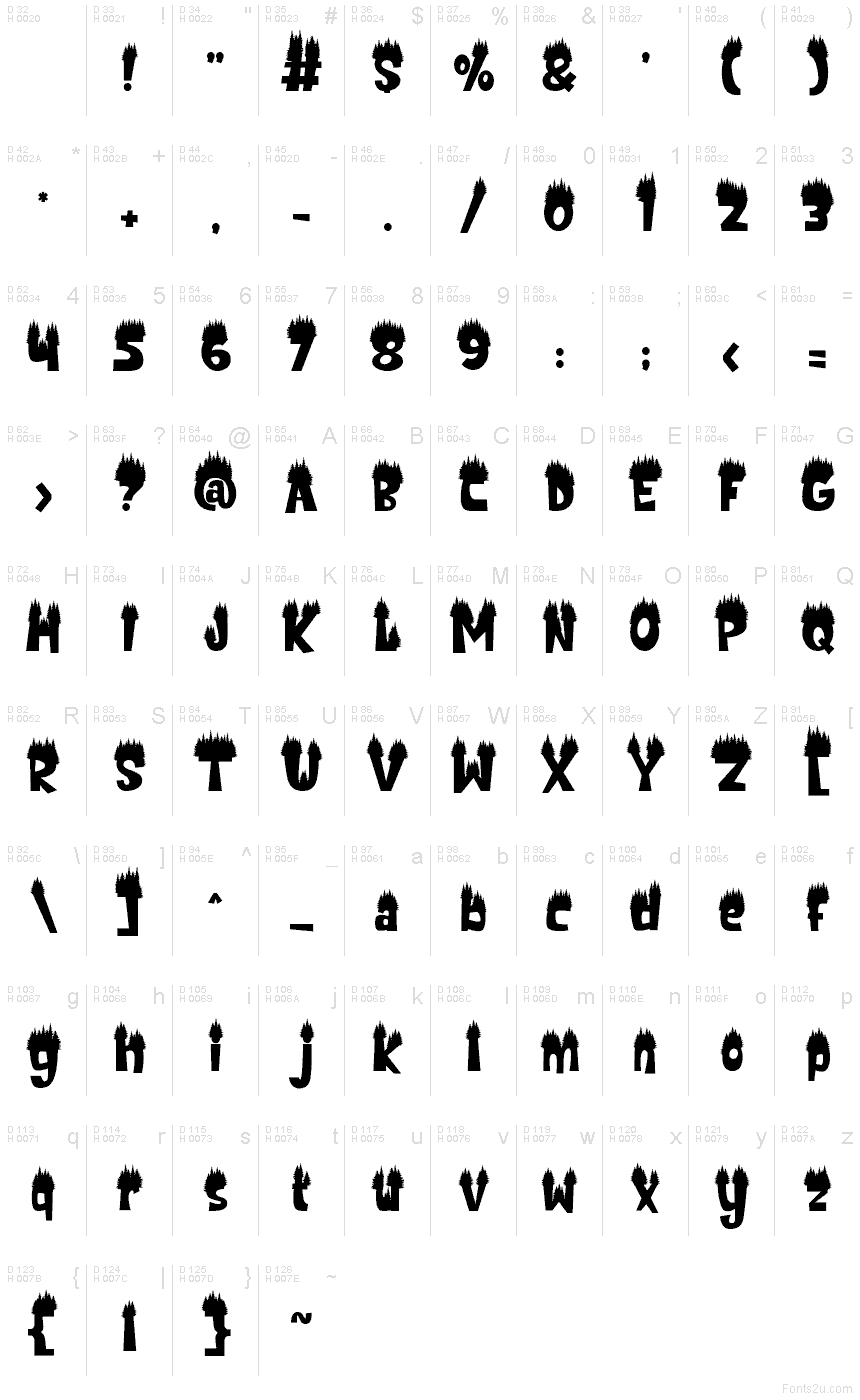
Cedar Heaven Forest
Cedar Heaven Forest font by PutraCetol Studio combines rustic, organic elegance with unique textured design for a bold and powerful look. The decorative elements take the font to a whole new level and set it apart from all other inspirational fonts. Each character can be described as unparalleled so if you want your original innovative messages to reach viewers, then here is your way to do it.
Start with branding designs for natural items like cosmetic tools or soaps, or with packaging designs for eco-friendly electronic devices. You also could bring a relaxing presence to the professional workplace with interior decor ideas and combining this free display font in action implemented with quotes. Finish the journey on social media platforms where users will immediately notice the uniqueness of Cedar Heaven Forest.